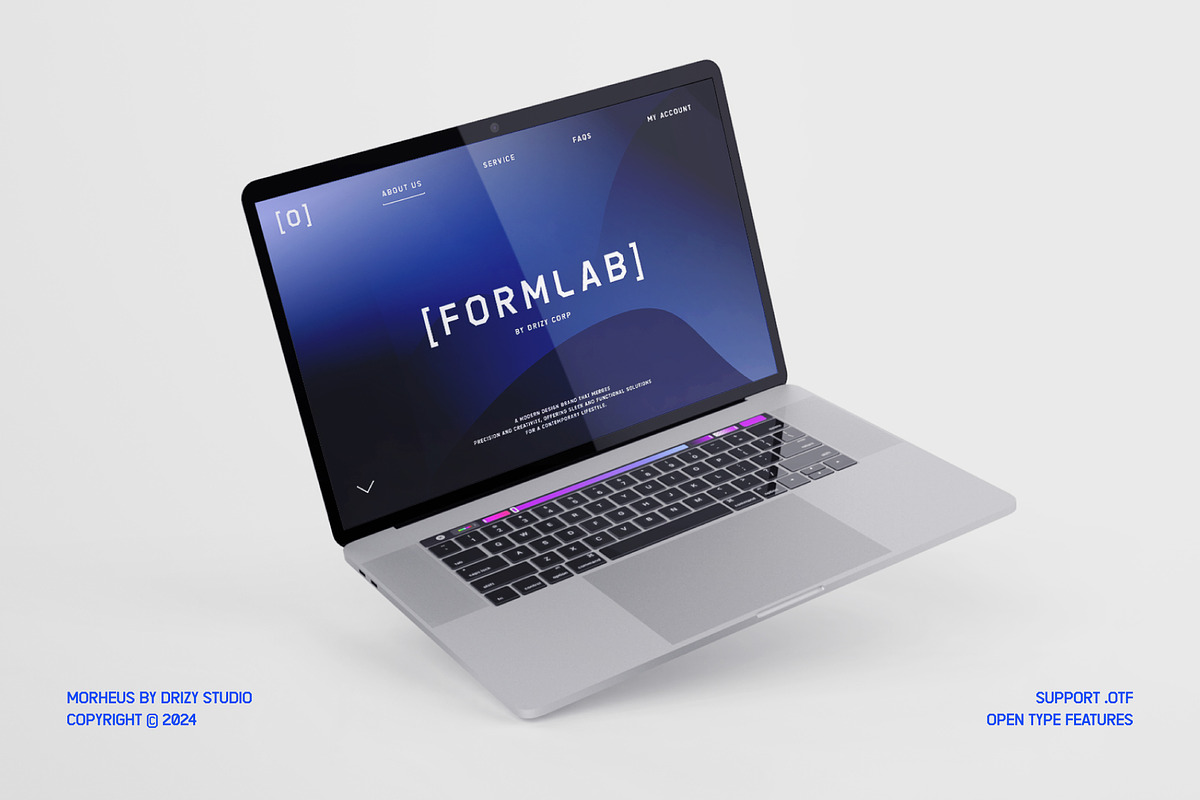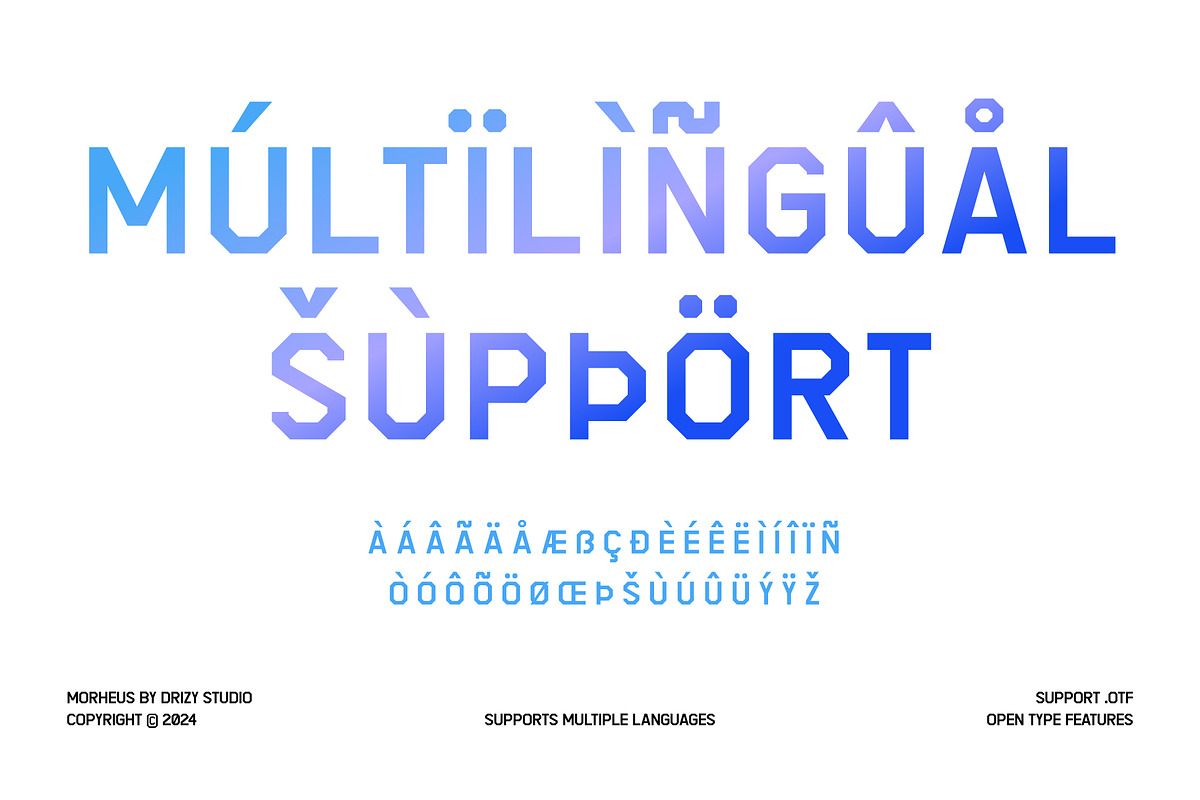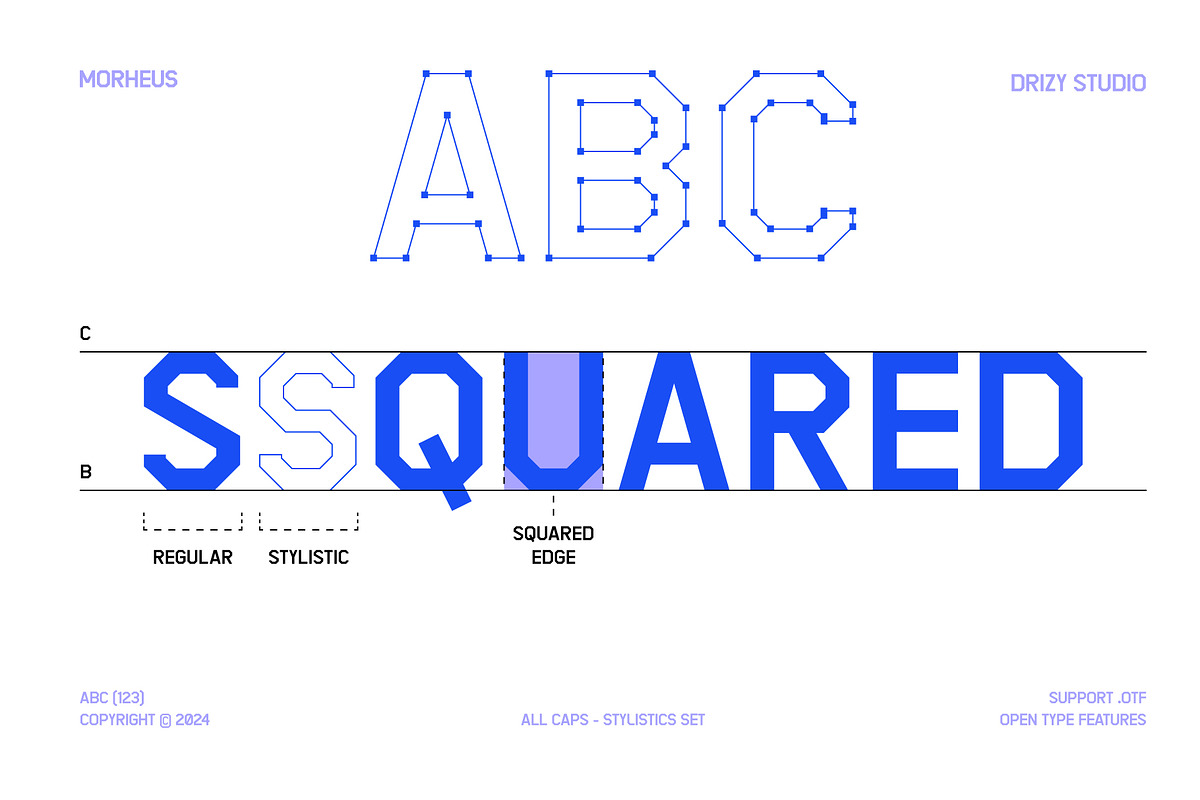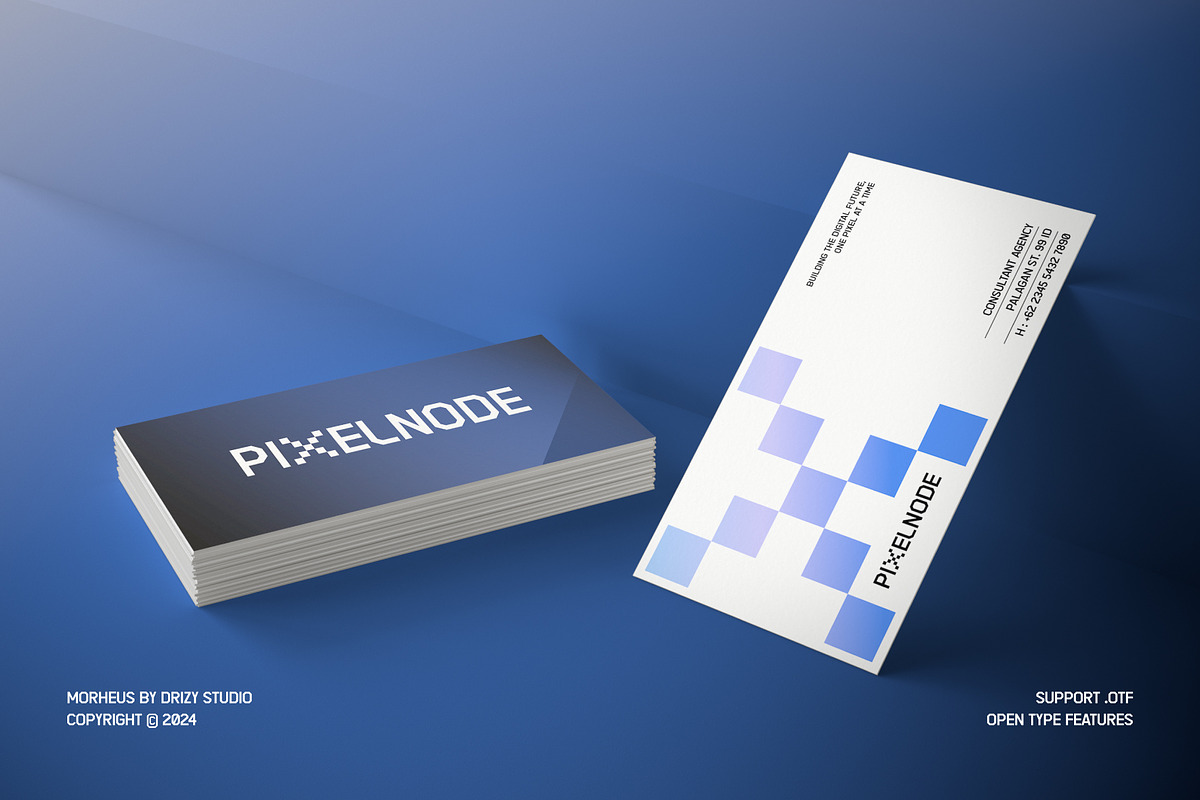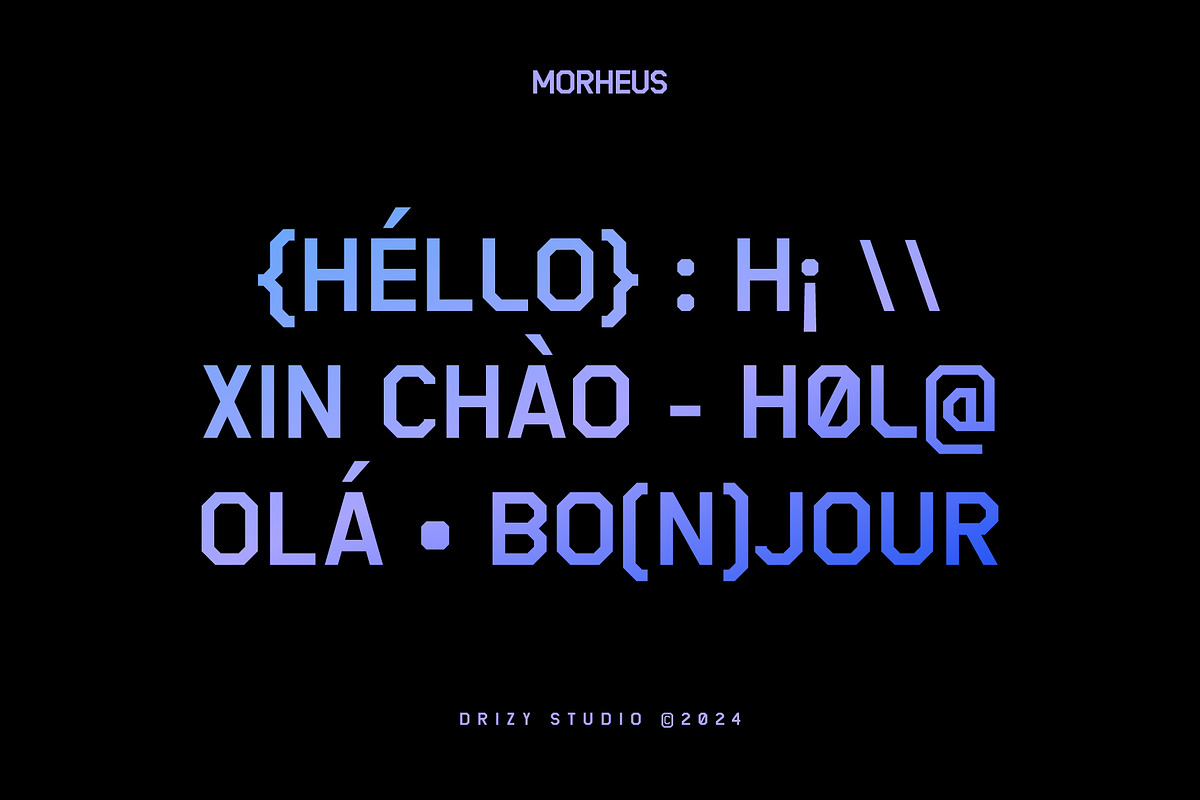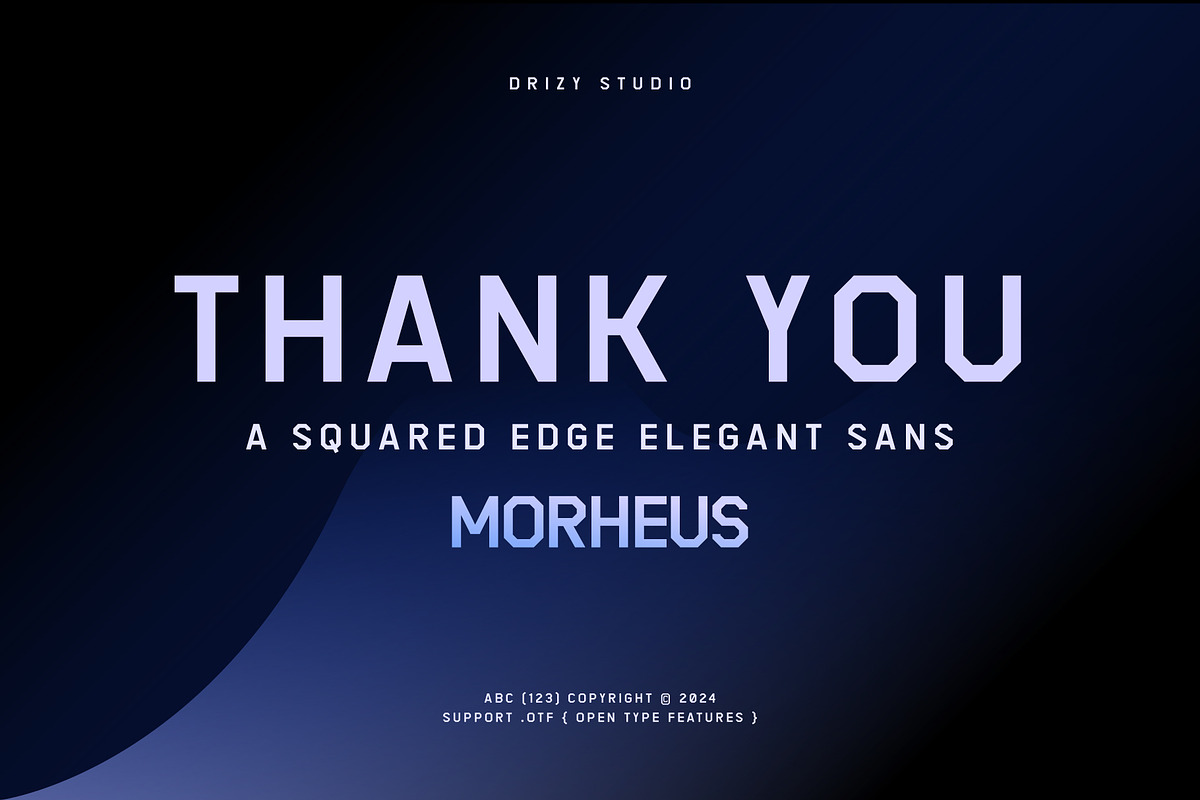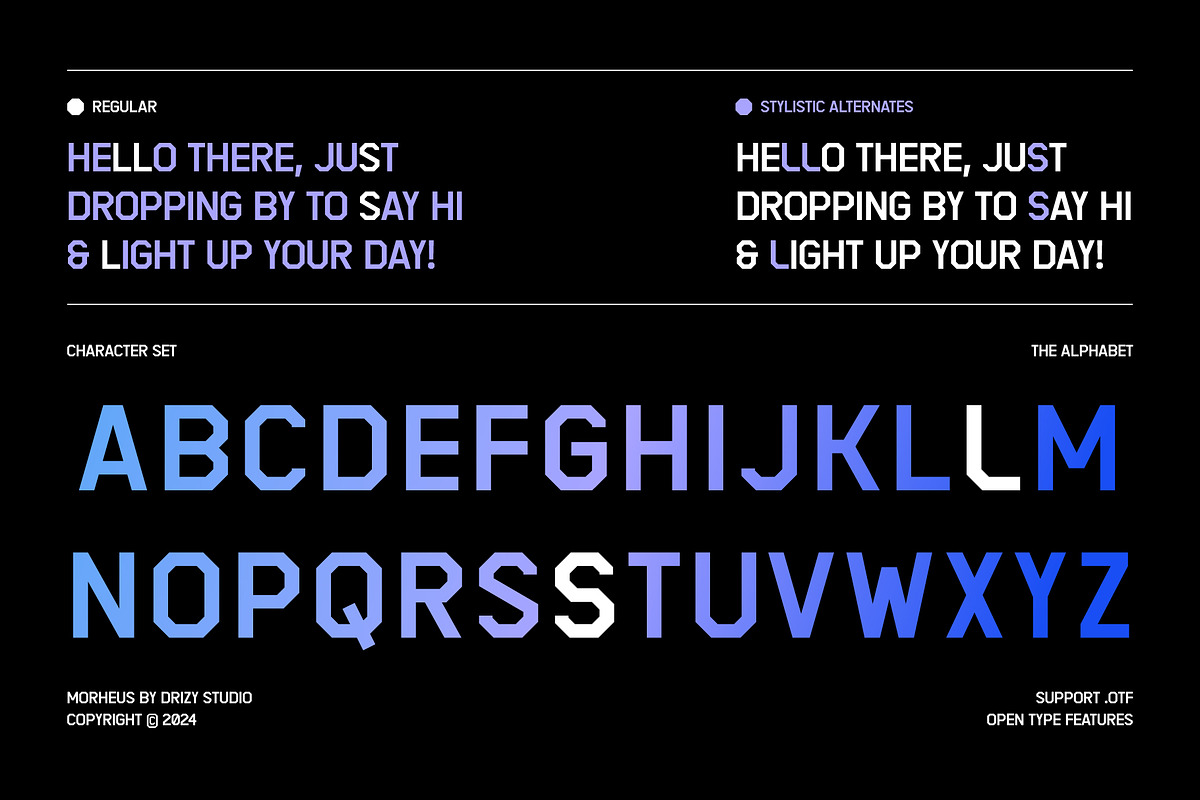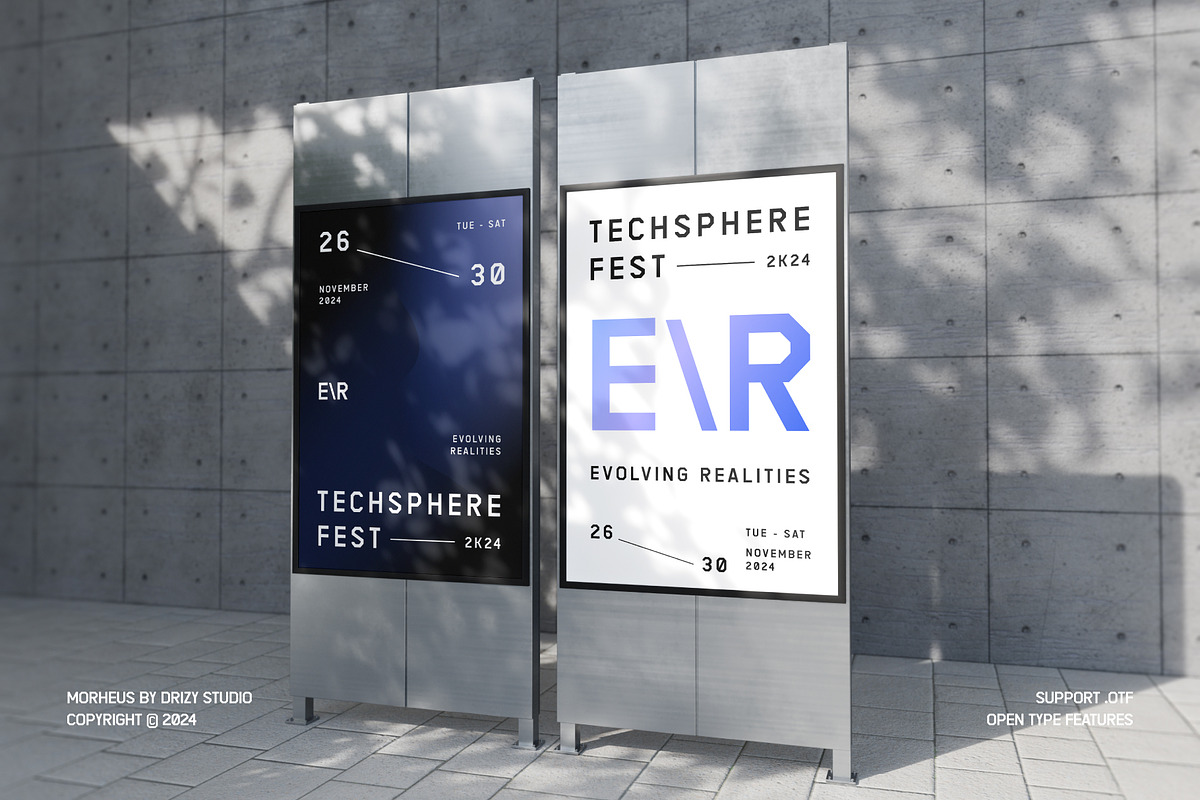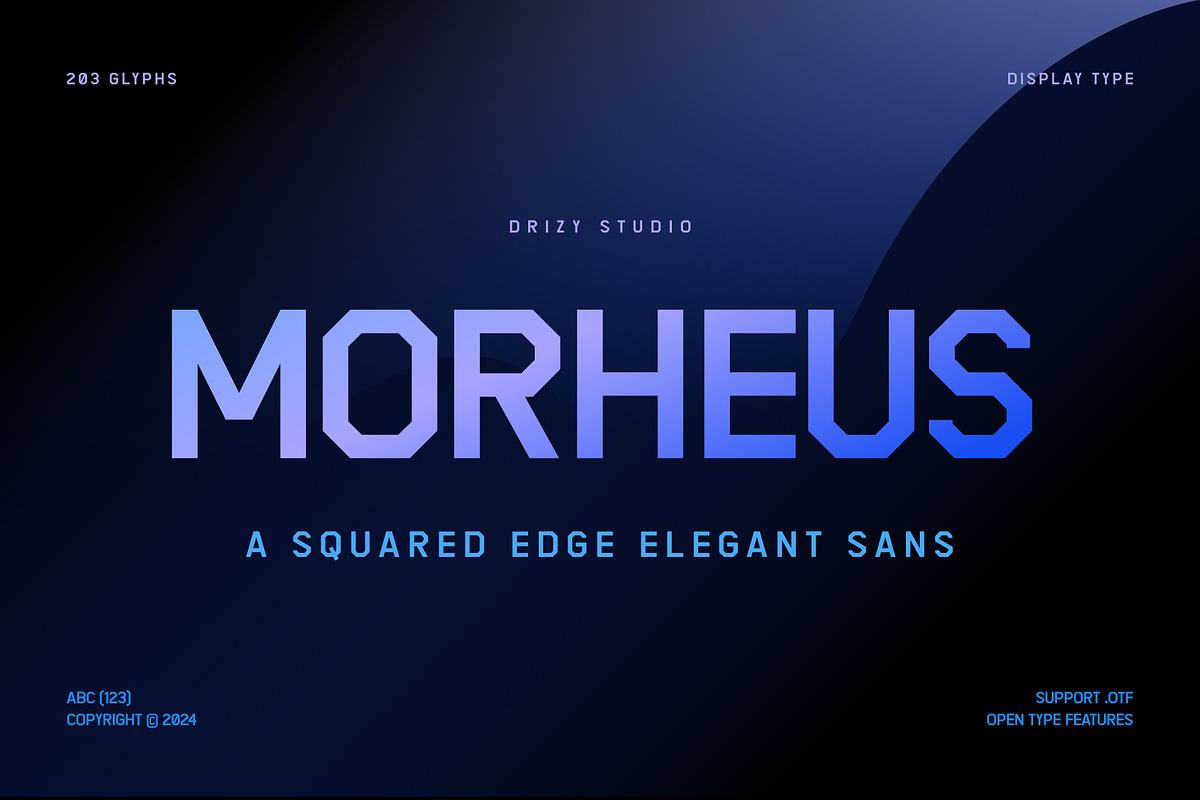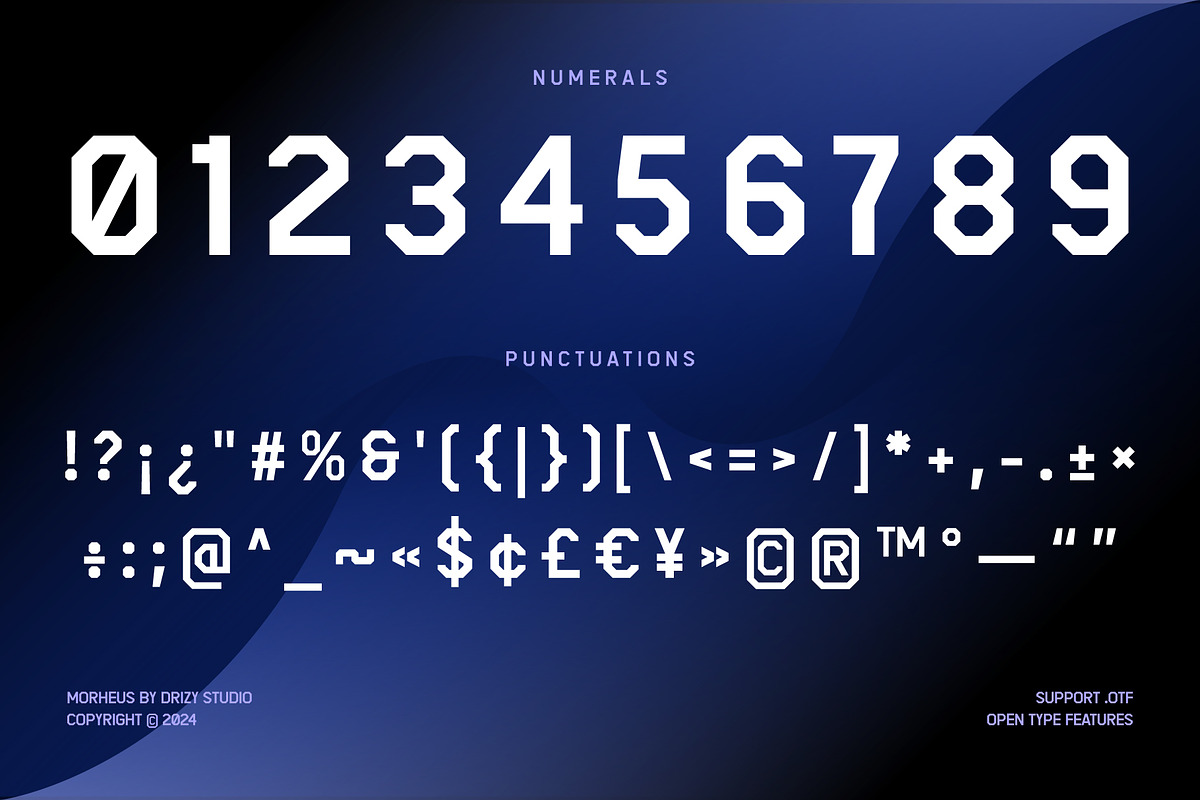
Morheus – Squared Edge Elegant Sans
Morheus – Squared Edge Elegant Sans Font
Morheus is a sleek and contemporary typeface designed for the Clean Modern creative. With it’s squared edges and clean lines, this font exudes a perfect balance of sophistication and minimalism, making it an ideal choice for UI/UX designs and visual identity projects. Whether you’re crafting a tech-savvy app interface, branding for a forward-thinking company, or creating polished web layouts, Morheus delivers a professional yet approachable aesthetic. It’s versatility and legibility ensure it stands out in both digital and print formats, while its modern elegance adds a touch of refinement to any design.
Morheus features:
- Character Set (All Caps)
- Punctuation & Numbers
- Stylistics Set 01
Elevate and explore the design possibilities with this Clean Modern Font!